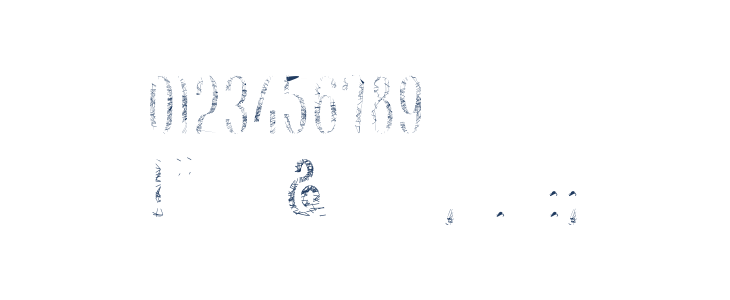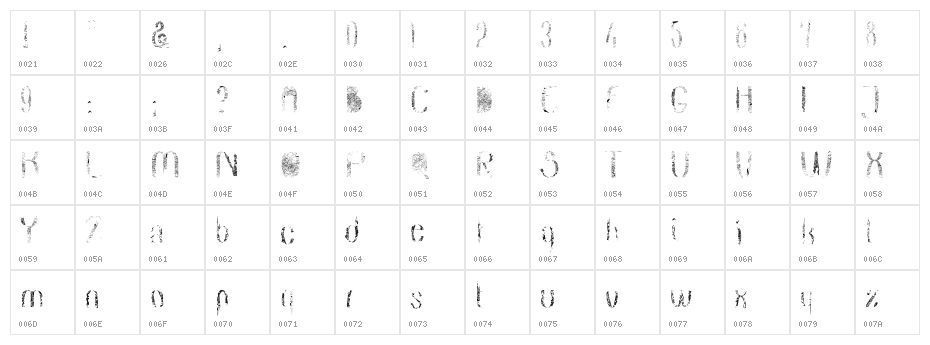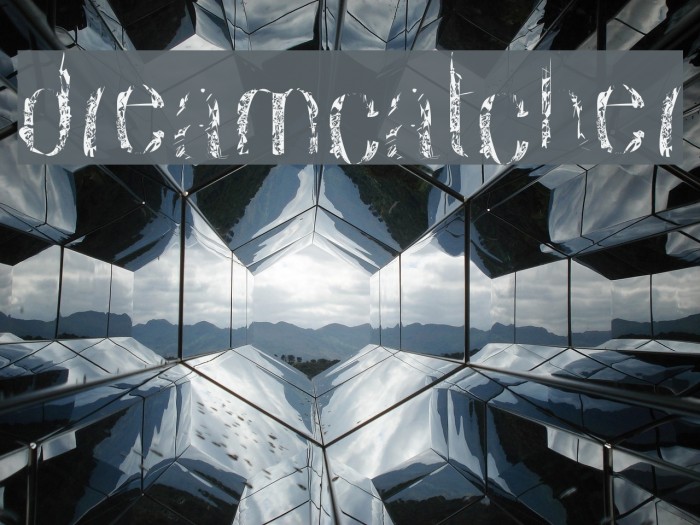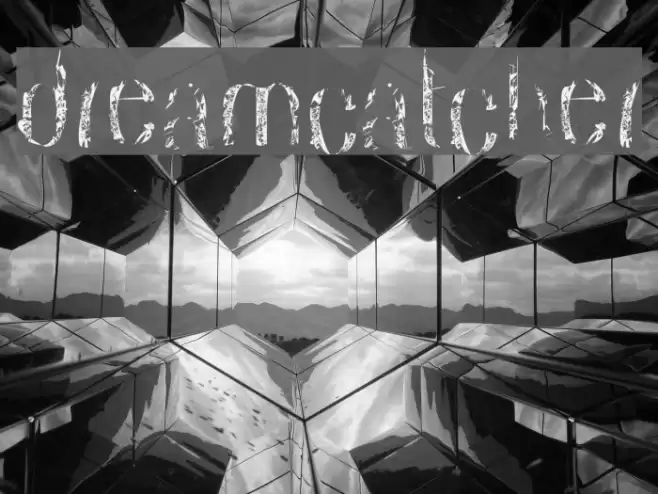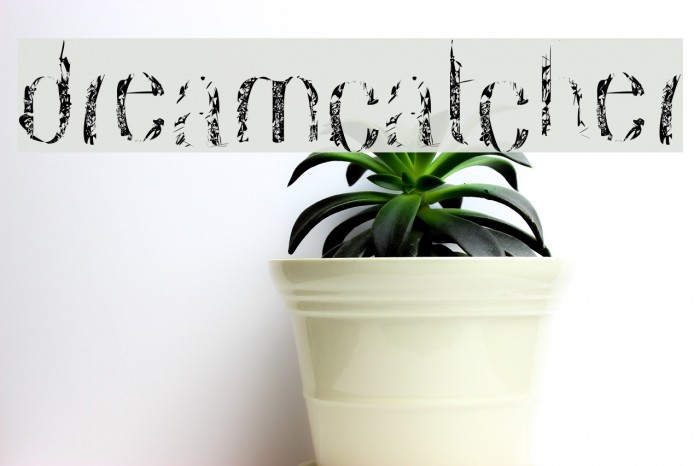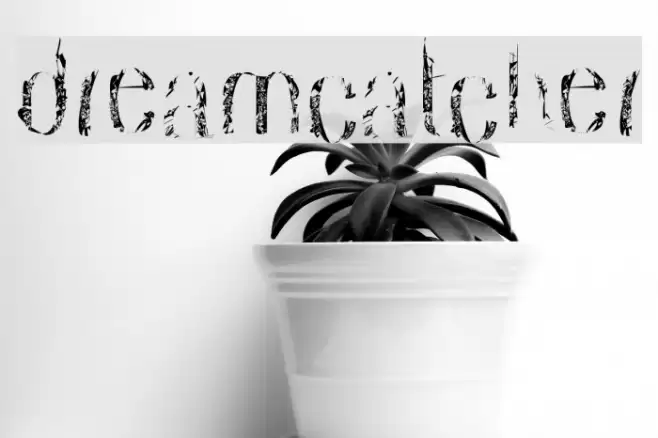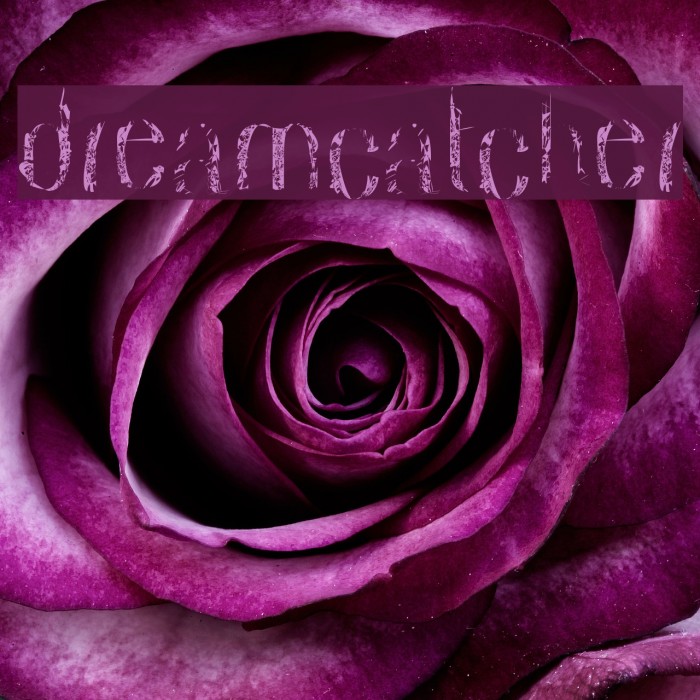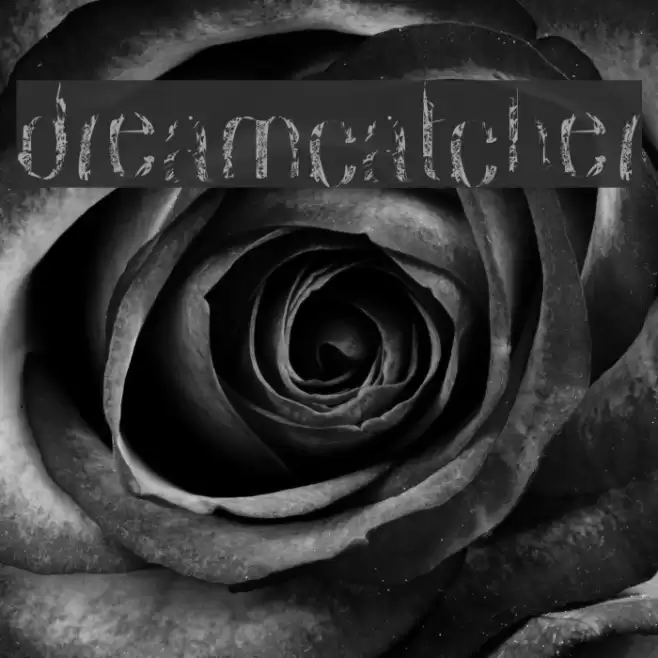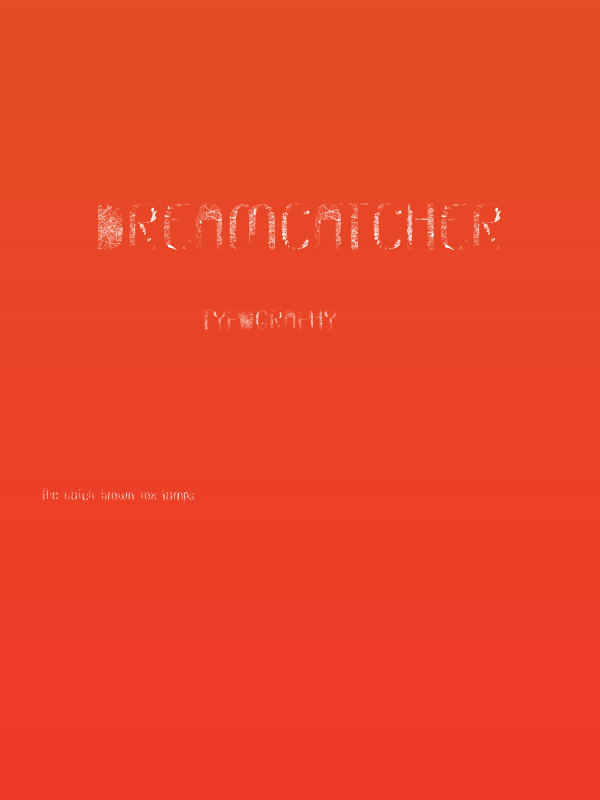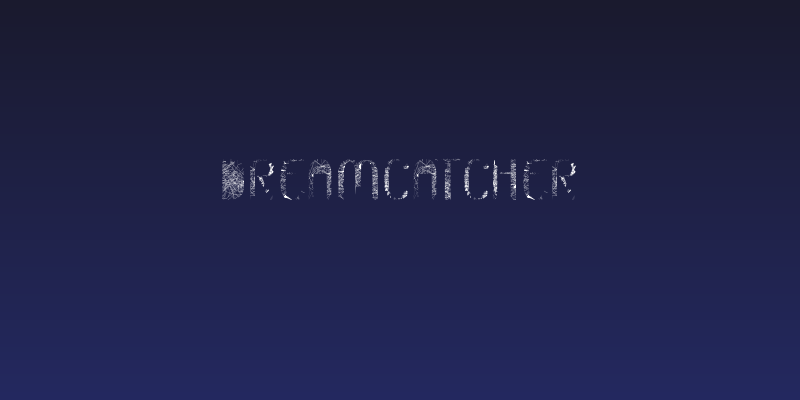
dreamcatcher Font
dreamcatcher Description
This font features a unique and intricate design that resembles a web of fine lines and threads, creating a textured and organic appearance. Each character is composed of a series of intersecting lines, giving it a hand-drawn, artistic feel. The letters maintain a consistent height and width, but the internal detailing varies, adding a sense of movement and complexity. This font is highly decorative and stands out due to its unconventional style, making it suitable for creative and artistic projects.
| Proposed Projects | Ideal for artistic projects, album covers, posters, and creative branding where a unique and eye-catching typeface is desired. |